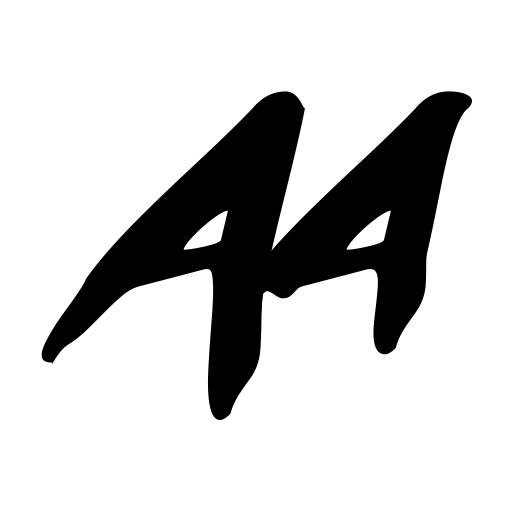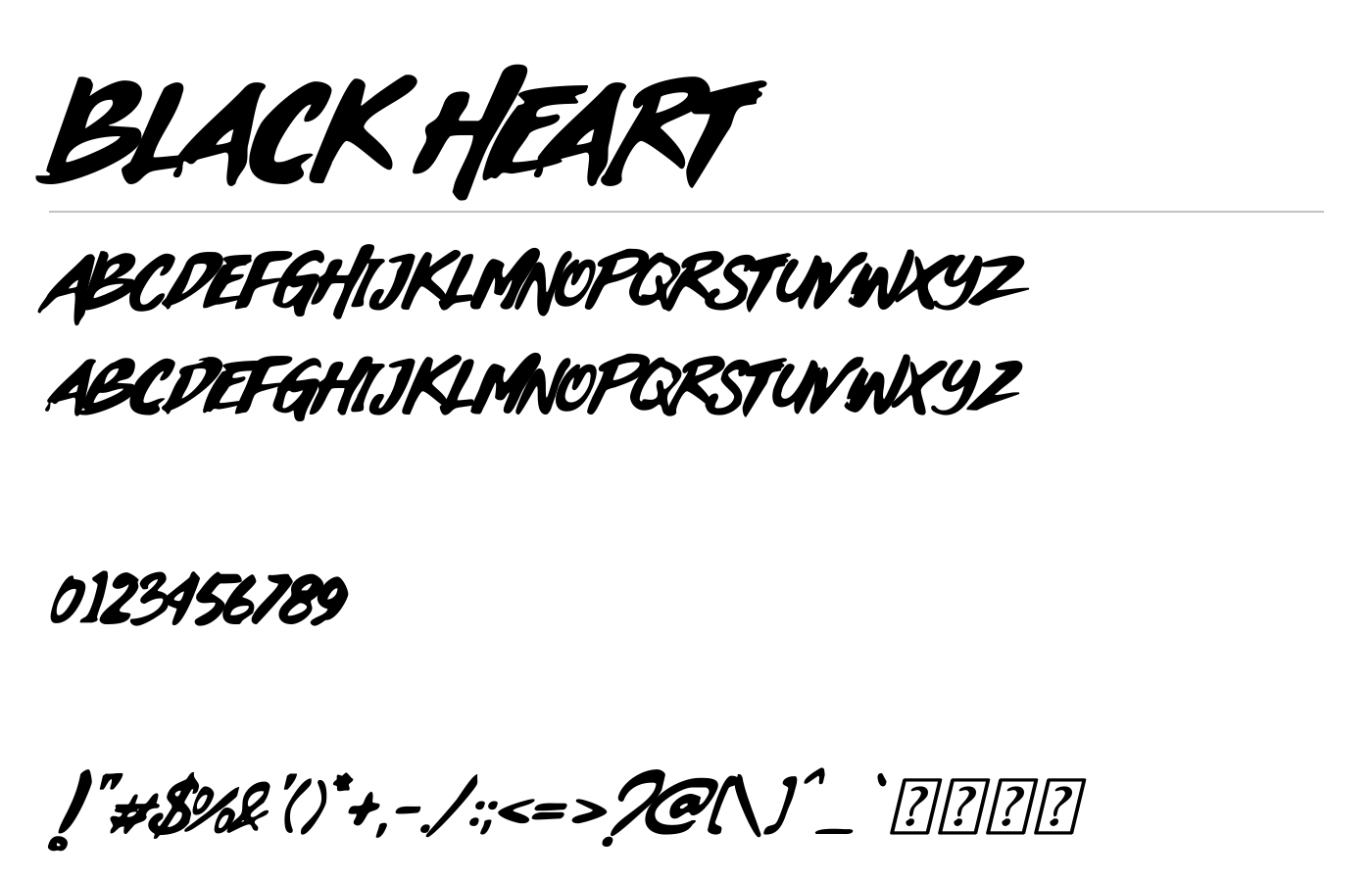
Black Heart is a bold, energetic script font that mimics dynamic brush strokes with a strong, casual flair. Its thick, slightly textured lines and lively letterforms convey a sense of movement and personality, making it perfect for vibrant branding, eye-catching headlines, or artistic projects that want to communicate creativity and confidence.
Black Heart Font
About Black Heart Font
| Font family | Black Heart Font |